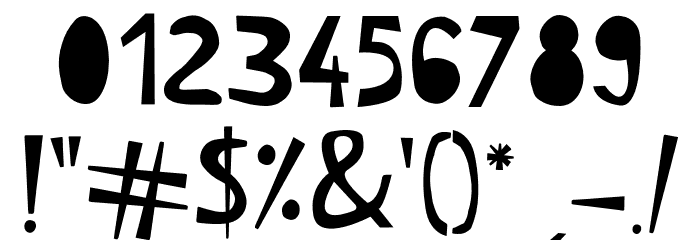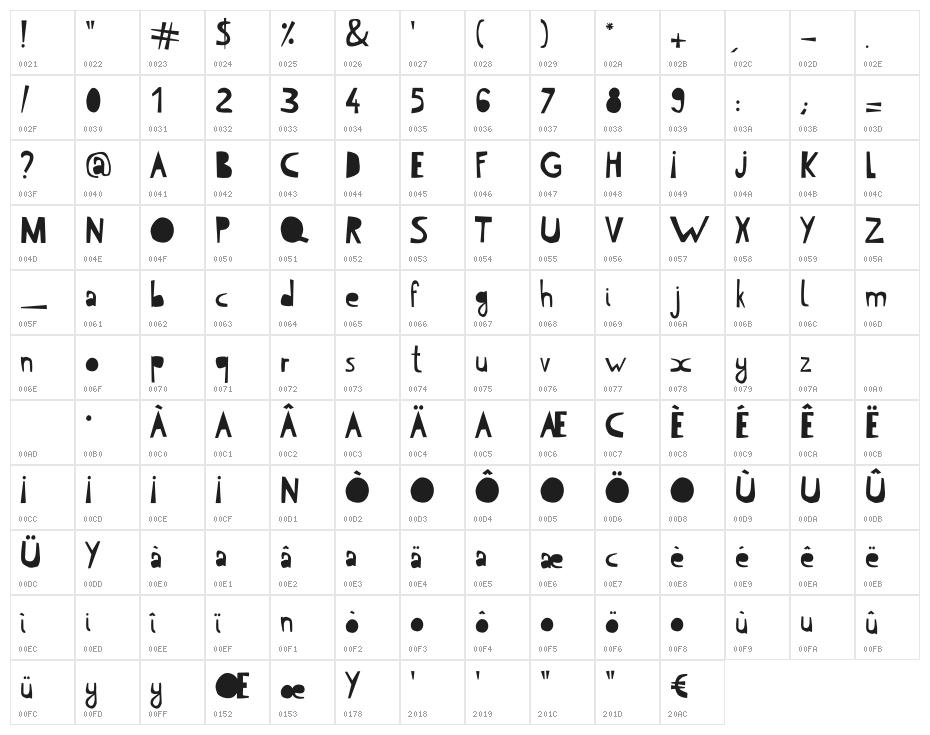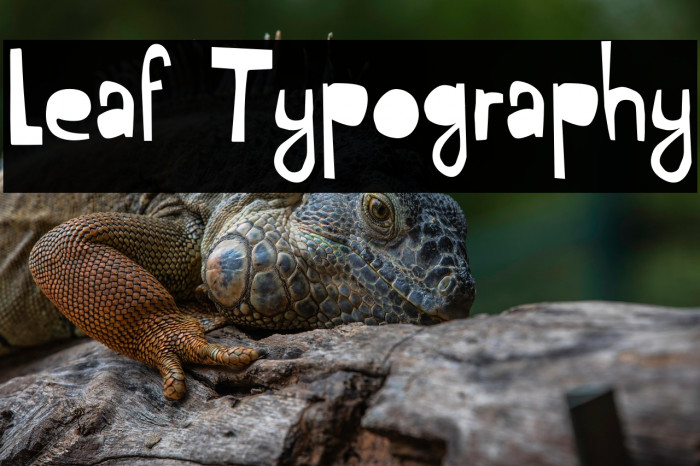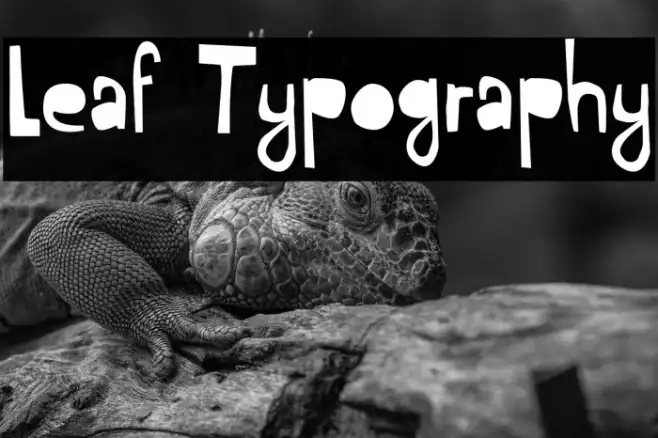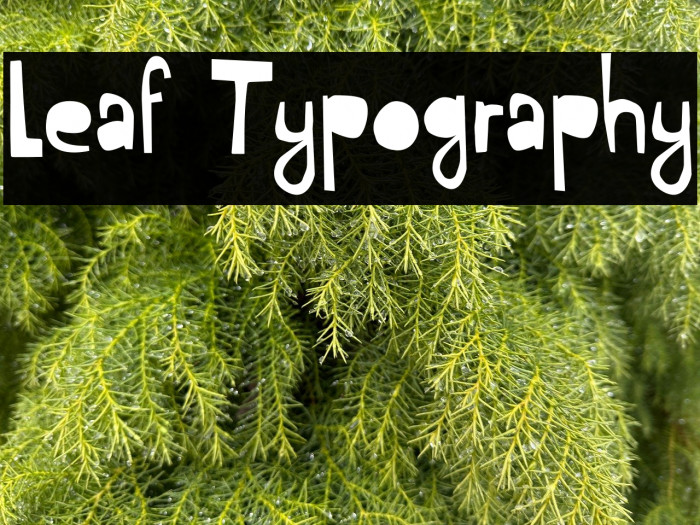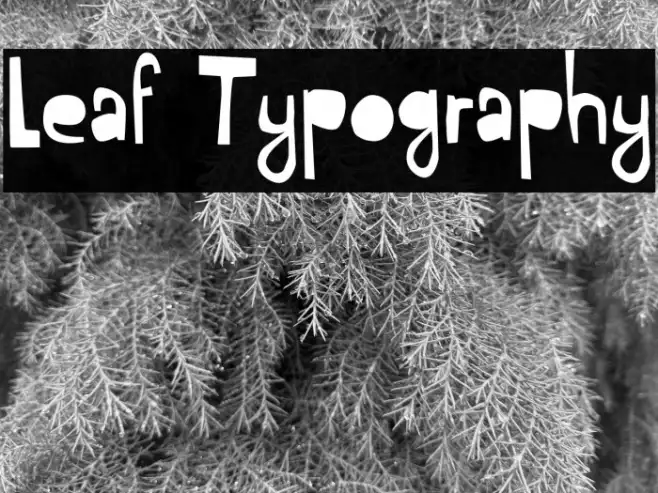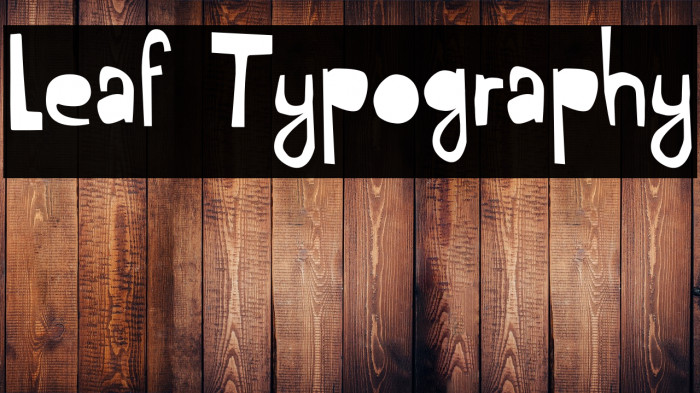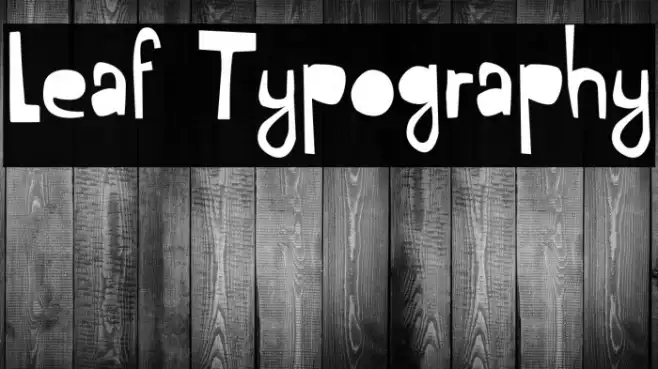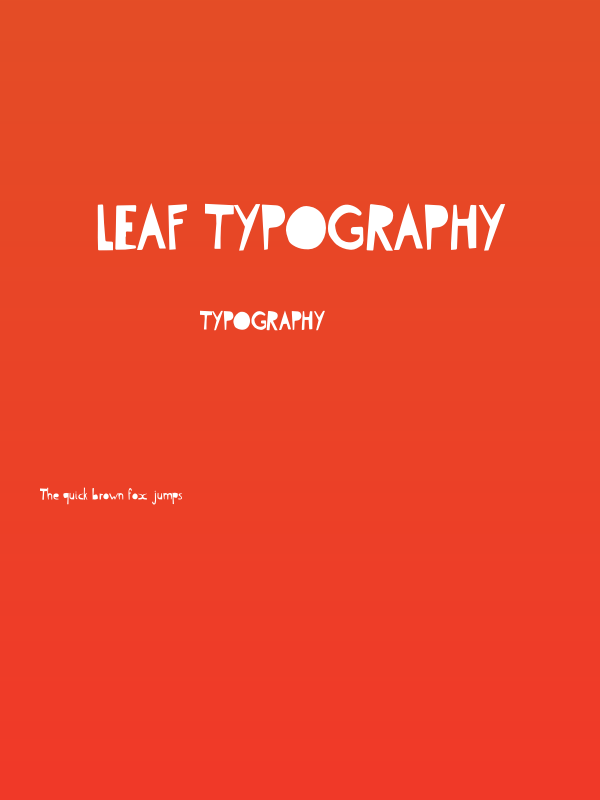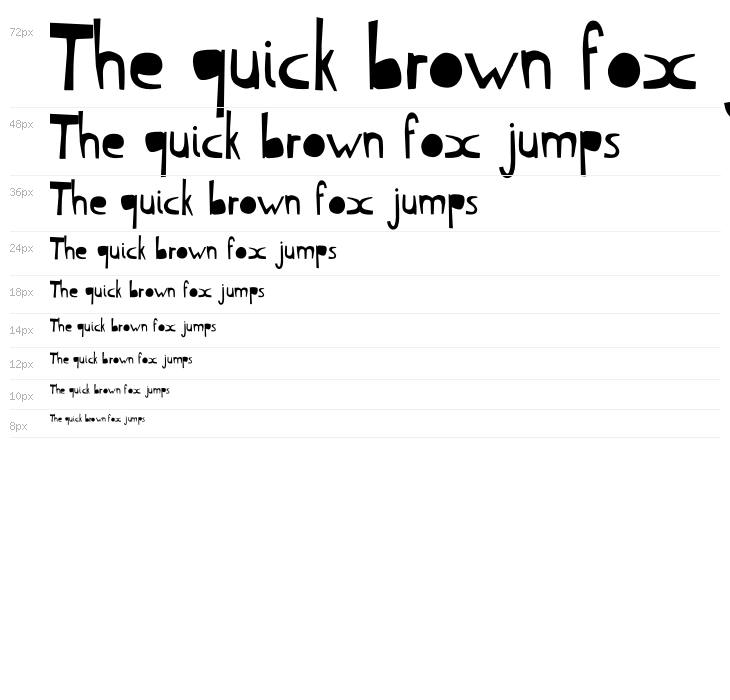
Leaf Typography Font
Leaf Typography Description
This font features a playful and organic design, with each character resembling the natural curves and irregularities found in leaves. The letters have a hand-drawn quality, with varying stroke thickness that adds a dynamic and lively feel. The uppercase letters are bold and slightly irregular, while the lowercase letters maintain a whimsical and approachable appearance. The numbers and special characters follow the same organic theme, making the font cohesive and visually interesting. Its unique style makes it suitable for projects that require a touch of nature or a casual, friendly vibe.
| Proposed Projects | Ideal for eco-friendly branding, children's books, nature-themed posters, and casual invitations. |